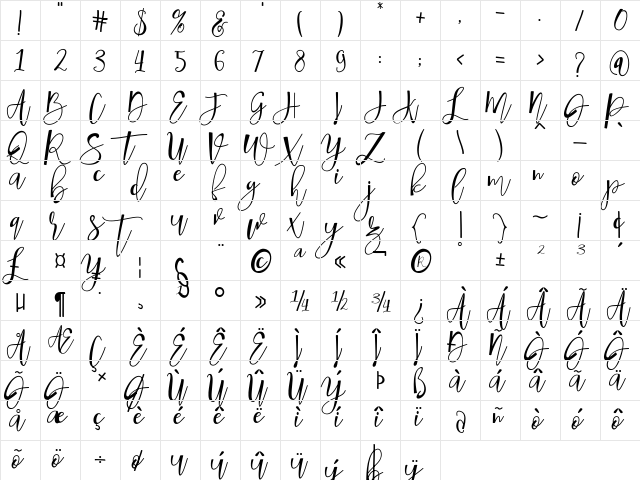
Hafizan Script Regular
Design Context for Hafizan Script Typeface
Hafizan Script brings a calligraphic fluidity to the page — its connecting strokes and expressive curves give it an unmistakably human quality.
Font Pairing: Combine Hafizan Script with a simple geometric sans for maximum contrast — the tension between flowing curves and clean structure is a classic typographic pairing.
Pro Tip: Use Hafizan Script for short runs of text — names, titles, or taglines. Extended body copy in script faces tires the eye quickly.